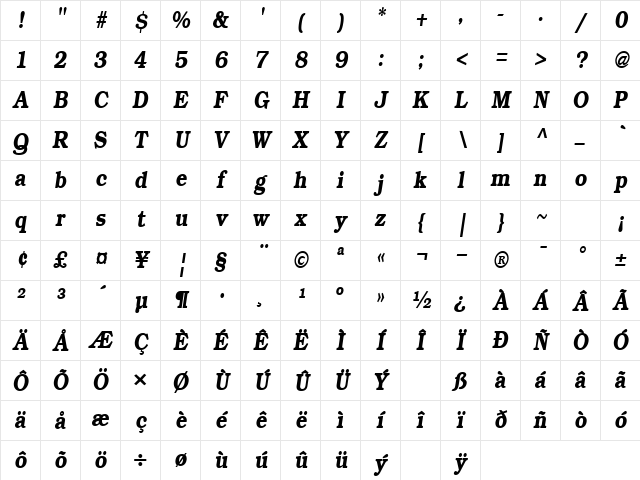
BookCondDemi Oblique
BookCondDemi Family
BookCondDemi Oblique
Complete BookCondDemi Oblique glyph index. Displaying only characters natively supported by BookCondDemi Oblique font.
Design Context for BookCondDemi
BookCondDemi is a composed and adaptable typeface that performs quietly and consistently across a wide range of design contexts. The slanted form adds forward momentum and visual energy. Its narrow stance lets it pack a punch even in space-constrained designs.
Pro Tip: Use BookCondDemi for emphasis, pull quotes, and subheadings where its slanted energy can add rhythm to the layout.